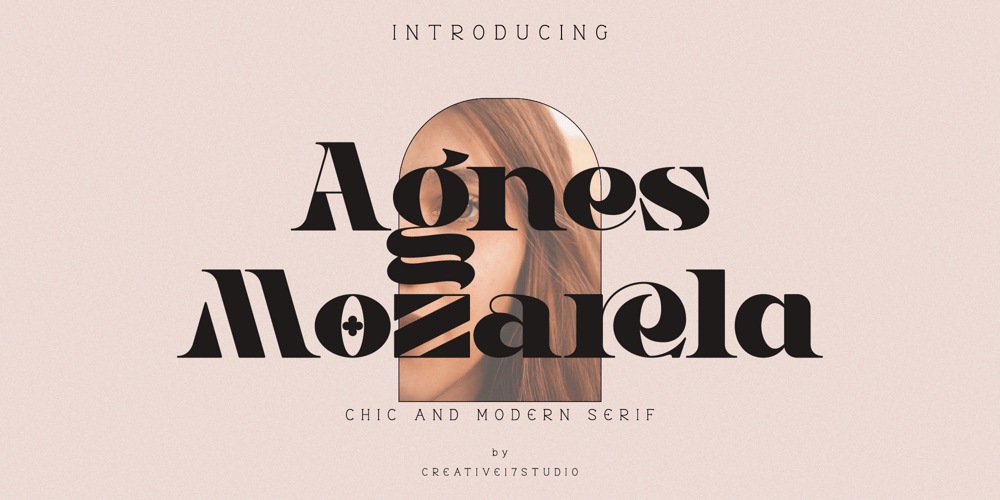
Agnes Mozarela Font Family was designed by Irfan Hidayat and published by Creative17studio. Agnes Mozarela contains 2 styles and family package options. IntroducingAgnes Mozarela is a modern and classic serif font that adopts a unique style.This font family is perfect for all kinds of elegant and stunning designs.Get this font immediately for your design use, especially for logo designs, branding, magazines and others.Multilingual support.Any question? just DM.Free update.Thank you